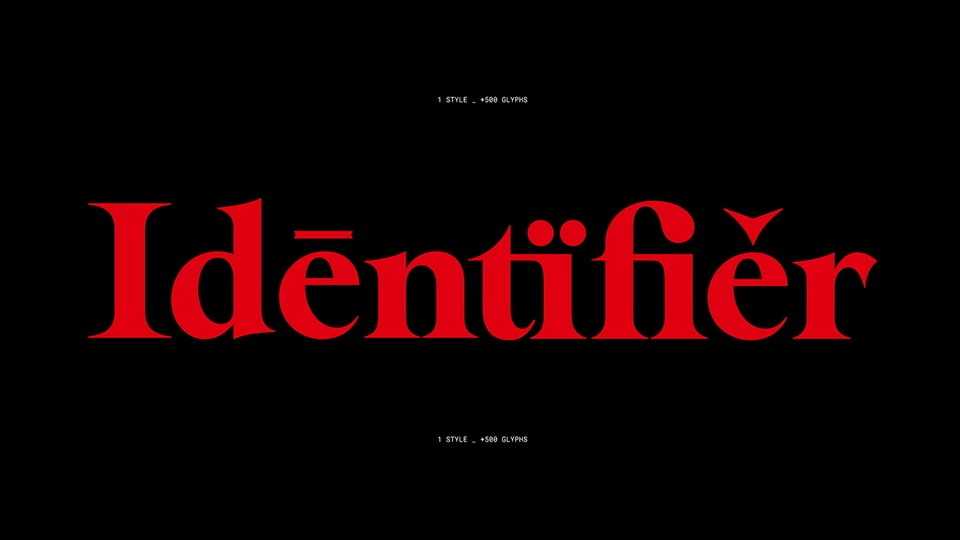
IDTF Identifier Font › Fontesk
Download Identifier font, a revival of the bold, flared Laureate sans serif typeface, originally crafted by Keystone Type Foundry in Philadelphia, PA, during the early 1900s.
Designer: Phan Kim Thoai